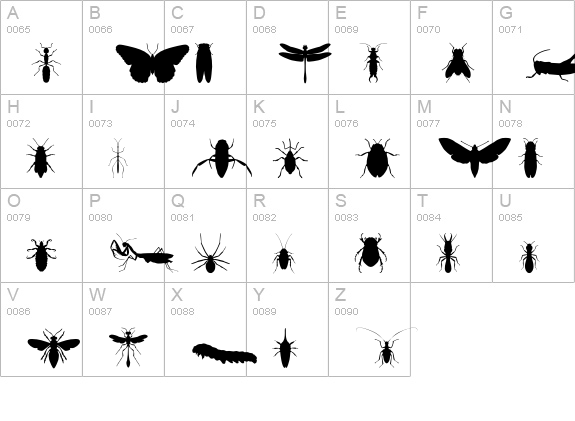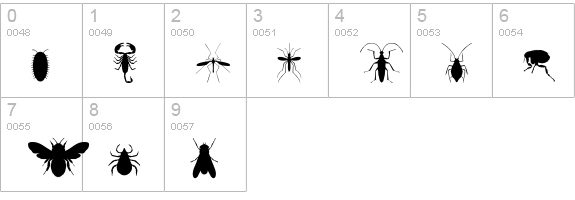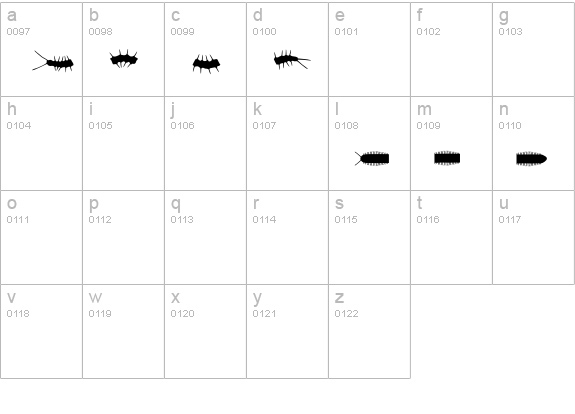
InsectileSolid Font Details
Introducing InsectileSolid font, a captivating and unique typeface that will add a touch of intrigue to your designs. This font is inspired by the intricate patterns found in the world of insects, lending a sense of organic elegance to any project. InsectileSolid font boasts a harmonious balance between sharp angles and smooth curves, creating a visually captivating aesthetic. Its meticulously crafted letterforms are reminiscent of the delicate wings and exoskeletons of various insect species, making it a perfect choice for nature-inspired designs, scientific publications, or even fashion branding. This font offers a wide range of weights and styles, allowing you to experiment and find the perfect fit for your creative endeavors. Whether you're looking for a bold statement or a subtle addition, InsectileSolid font has you covered. And the best part? InsectileSolid font is freely available to download at FontsMarket.com. That's right, you can effortlessly enhance your projects with this stunning typeface without any cost. It's the perfect opportunity to infuse your designs with a touch of the natural world, without breaking the bank. So why wait? Dive into the world of InsectileSolid font and let your creativity soar. Download it today at FontsMarket.com and embark on a typographic journey that will leave a lasting impression.